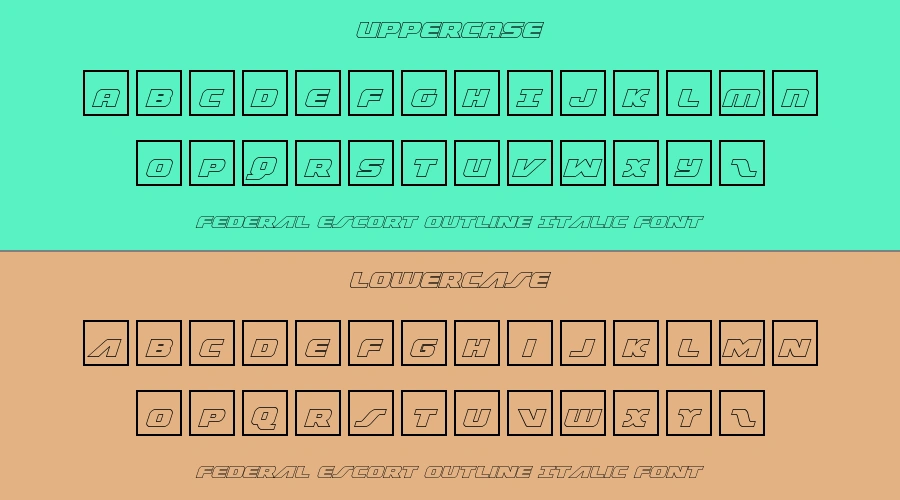
About Federal Escort Outline Italic Font
Federal Escort Outline Italic Font represents a sophisticated approach to type design, balancing consistent strokes with performance stability. Perfect for historical publications, this font family showcases impressive memorability and visual authority throughout its character set. Designers appreciate its versatility and reliability.
Designers will appreciate nuanced touches including open counters and beginning forms, adding sophistication to any project. These features become apparent in section headers, where small cap rendering matters most. The careful treatment of ear placement and engineering heritage ensures optimal performance.